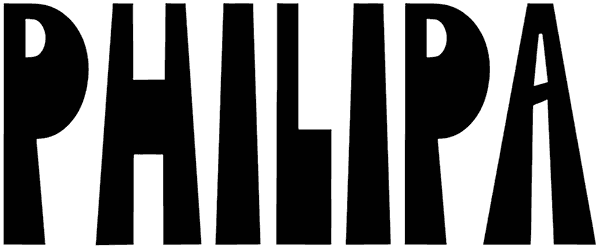
Philipa Font
You know that angle when you’re looking at something so much taller than you from below? That’s exactly what Philipa looks like. And you keep wondering why you’re so into its one-of-a-kind style! That’s all part of the plan, and let’s face it. It works!!
So the lowercase elements aren’t available, so what? You just wanted to make your words memorable on your concert night posters, apparel designs, book covers, or gaming graphics, and it looks like you just found it.
Philipa is a tall display font, carefully handcrafted to become a true favorite.
Its casual charm makes it appear wonderful down-to-earth, readable, ultimate, and versatile.